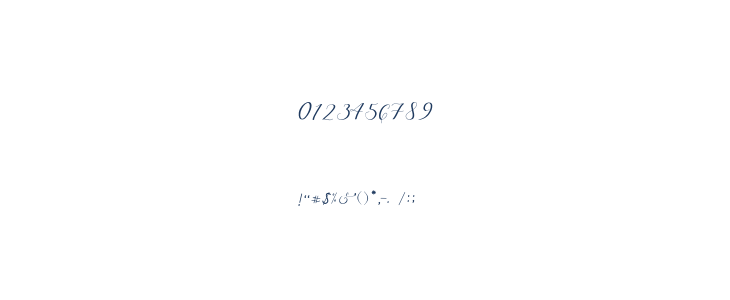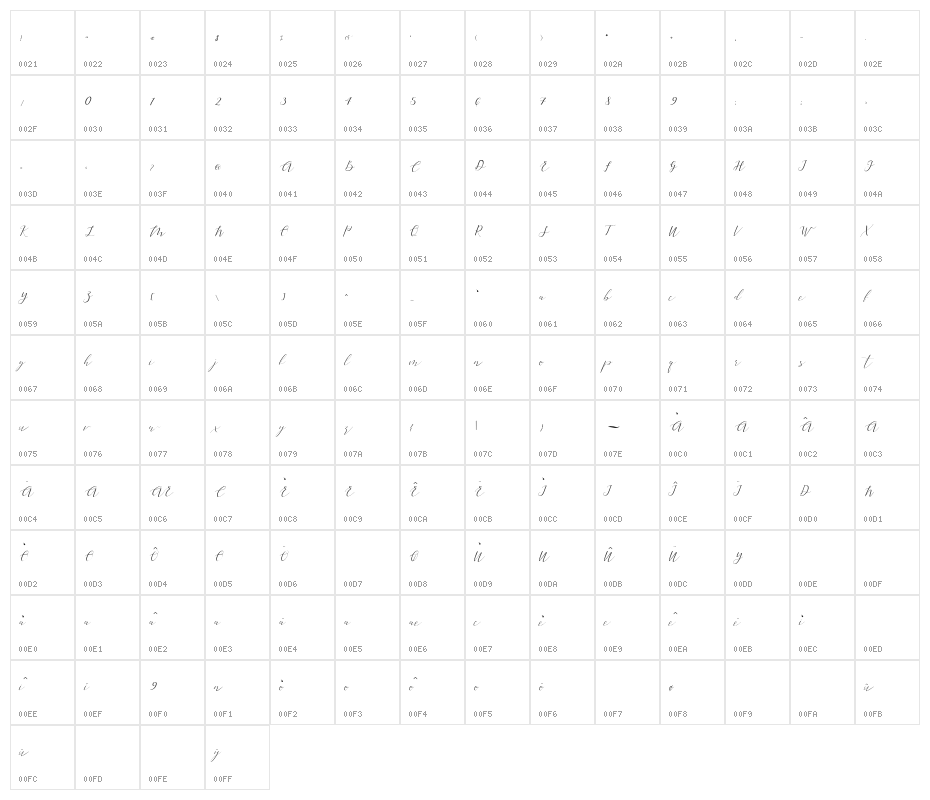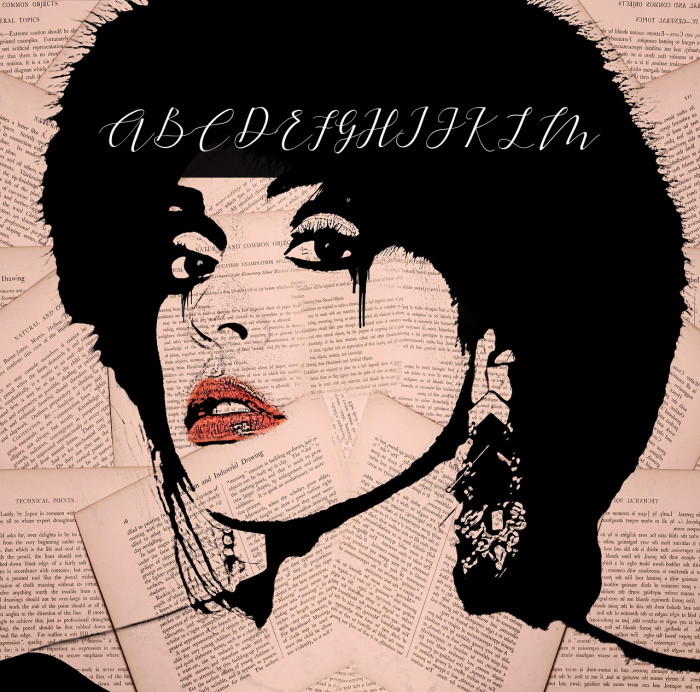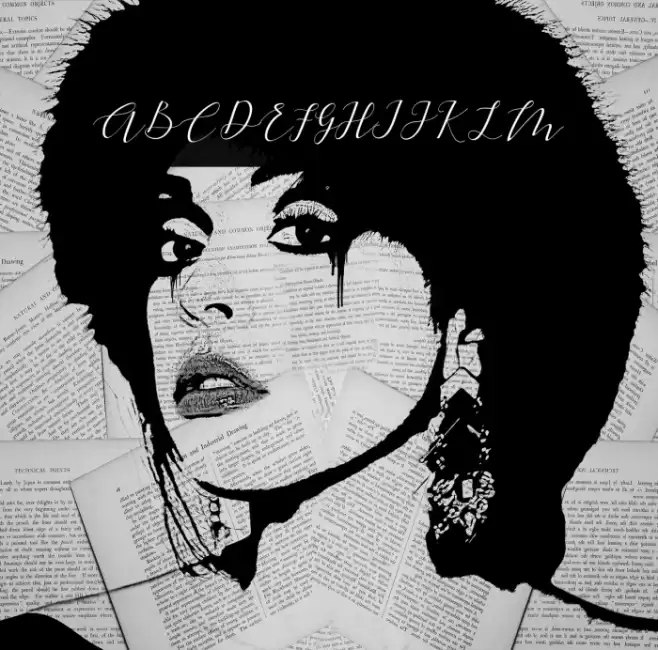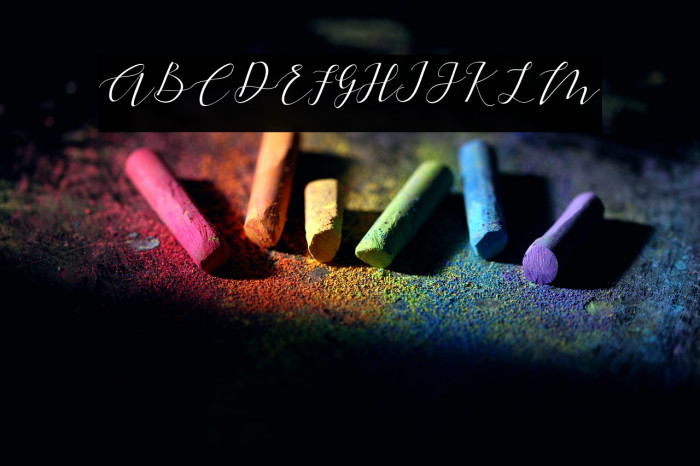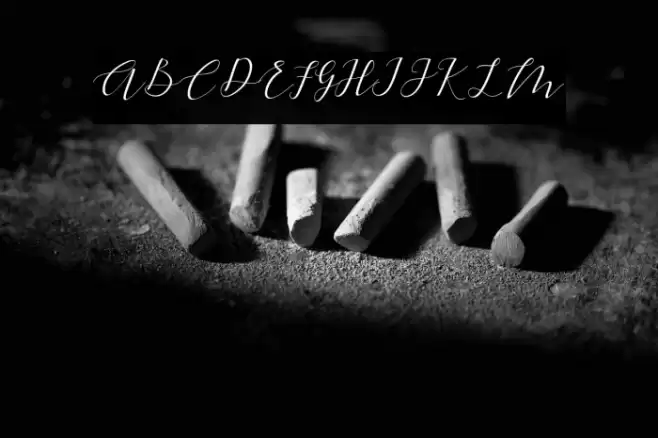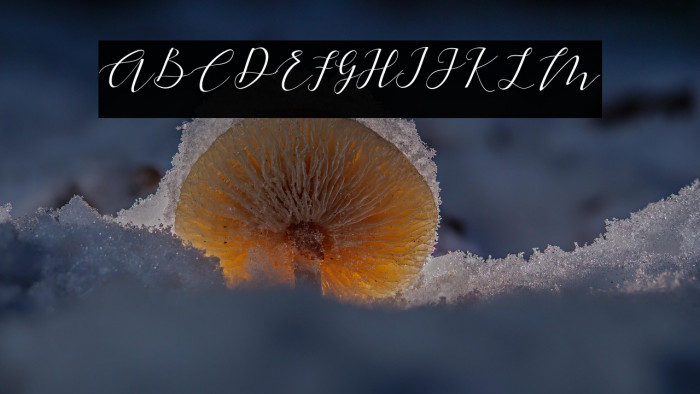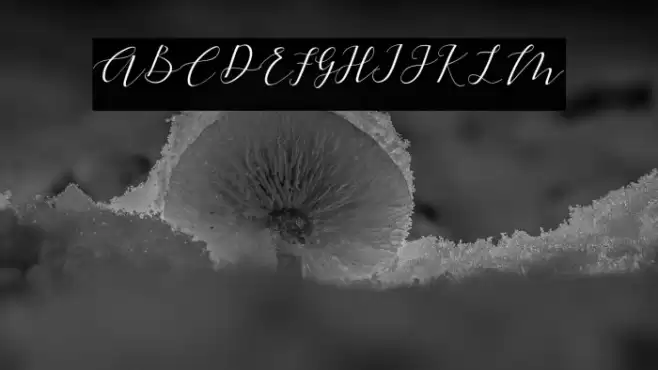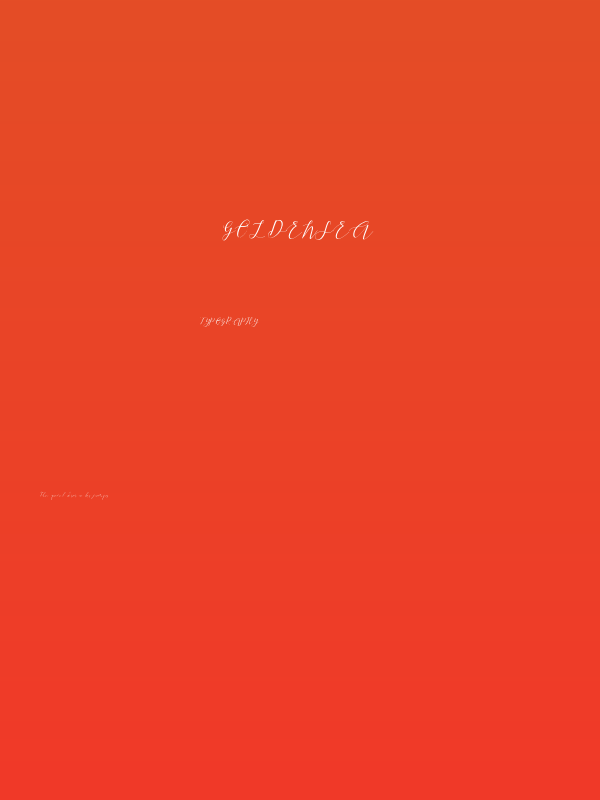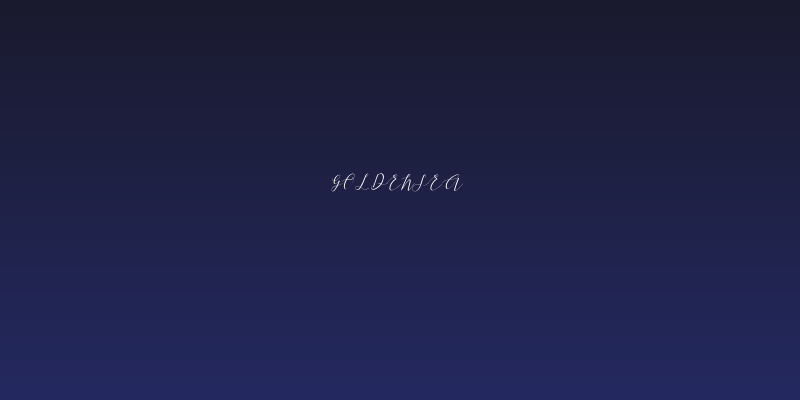
goldensea Font
goldensea Description
This elegant script font features a flowing, cursive style with delicate, thin strokes and graceful curves. The uppercase letters are ornate, with flourishes that add a touch of sophistication, while the lowercase letters maintain a consistent, fluid motion. The numerals are styled to match the overall aesthetic, providing a cohesive look. Special characters are included, enhancing the font's versatility. The design is reminiscent of traditional calligraphy, making it suitable for formal and decorative applications.
| Proposed Projects | Ideal for wedding invitations, elegant branding, personal stationery, and decorative quotes. |